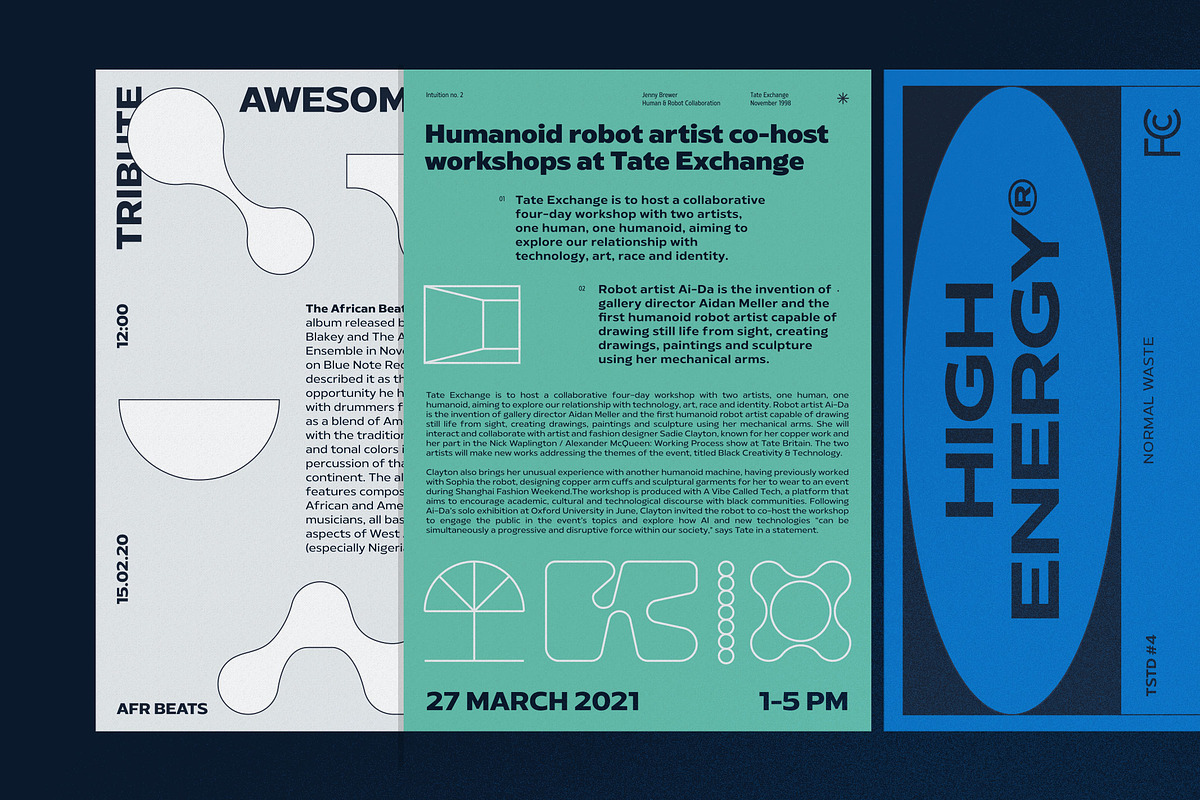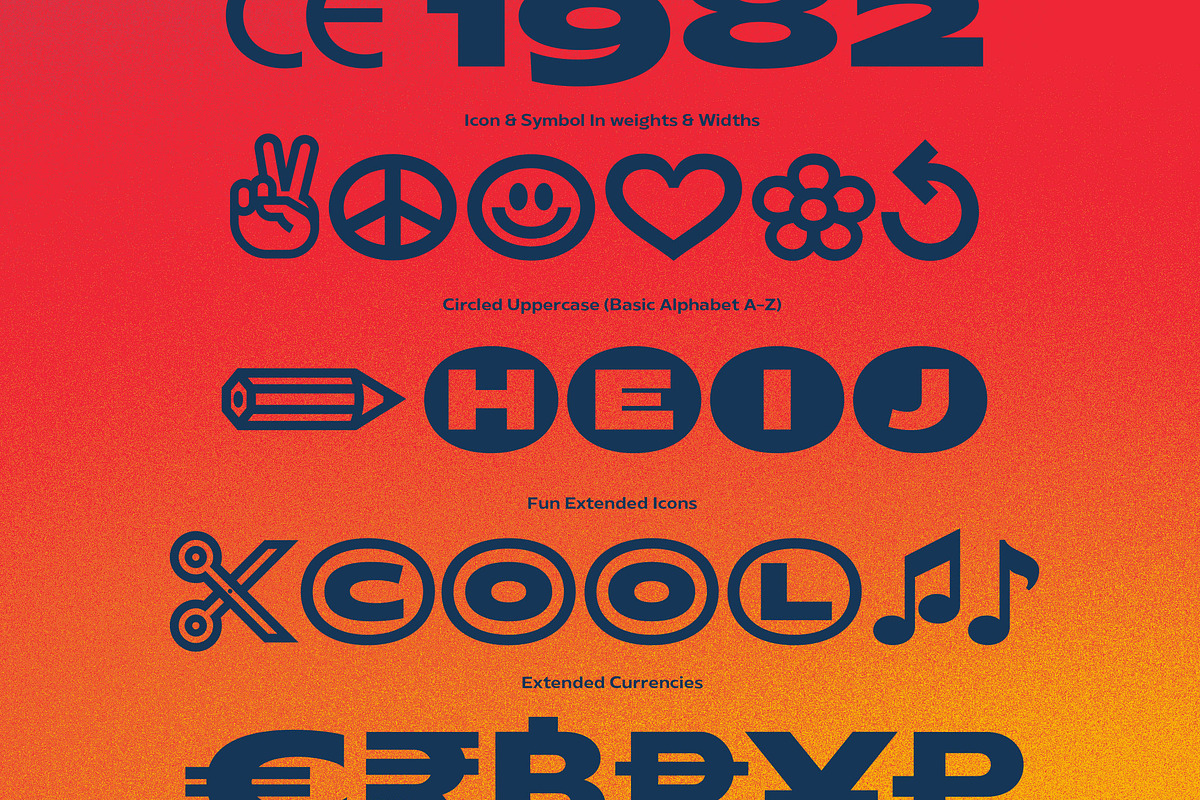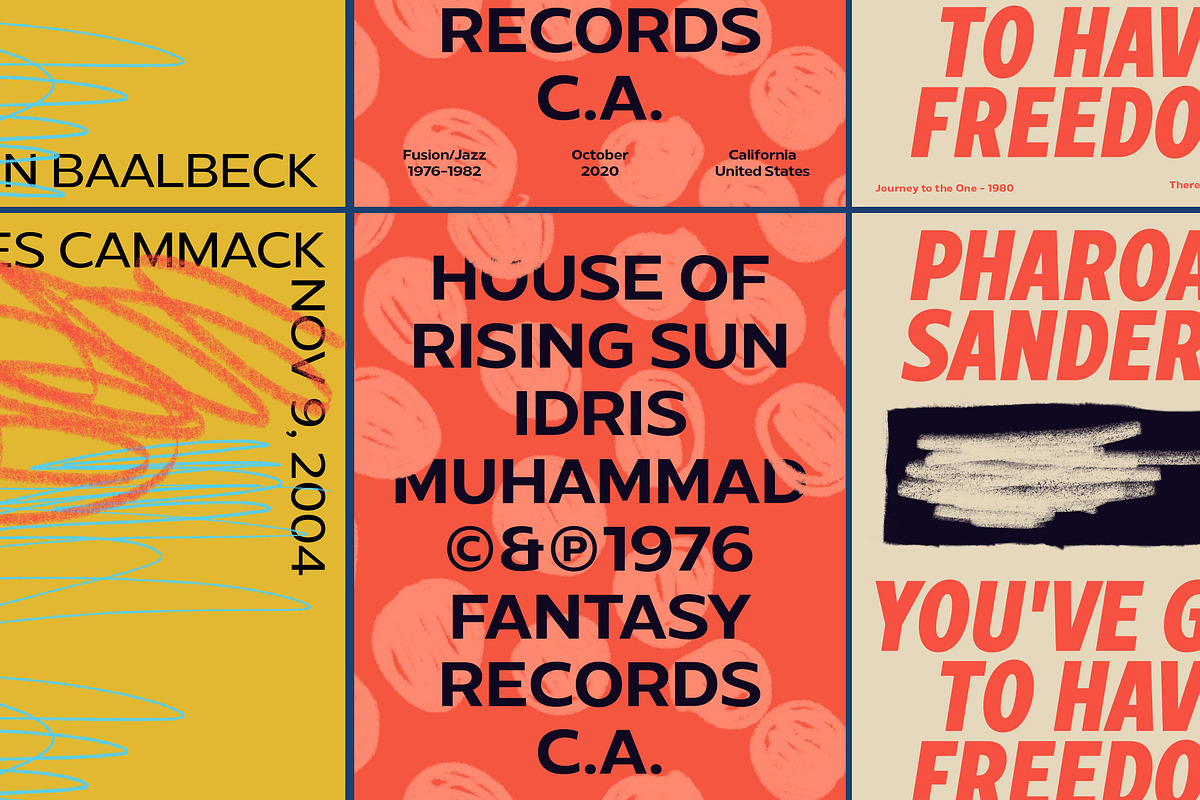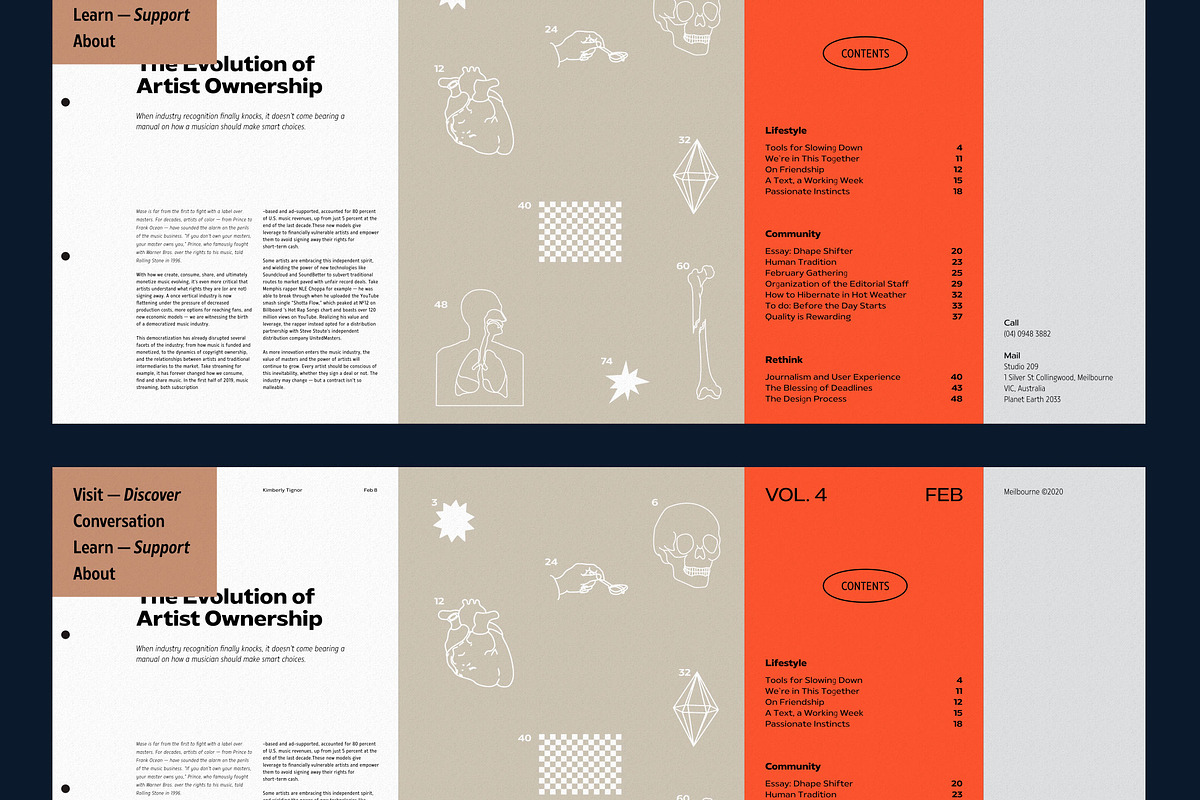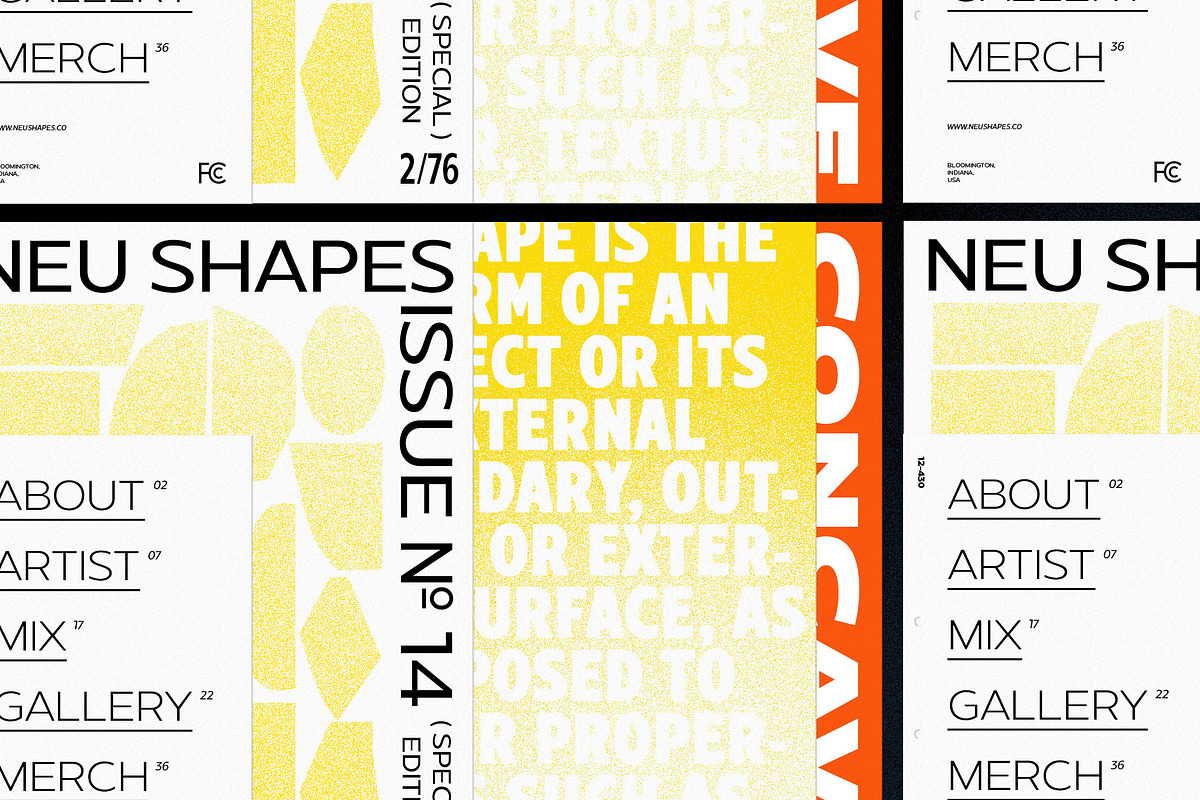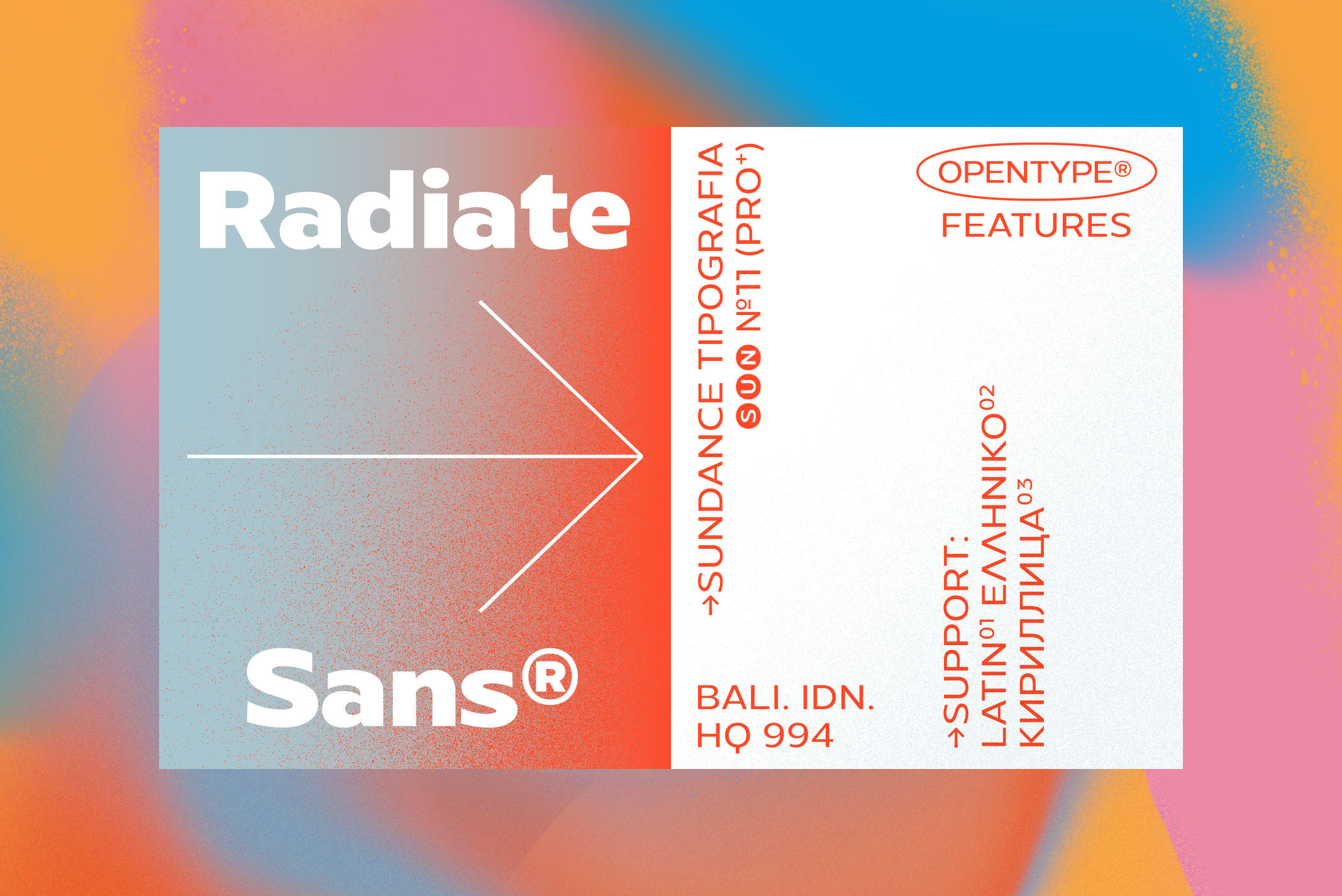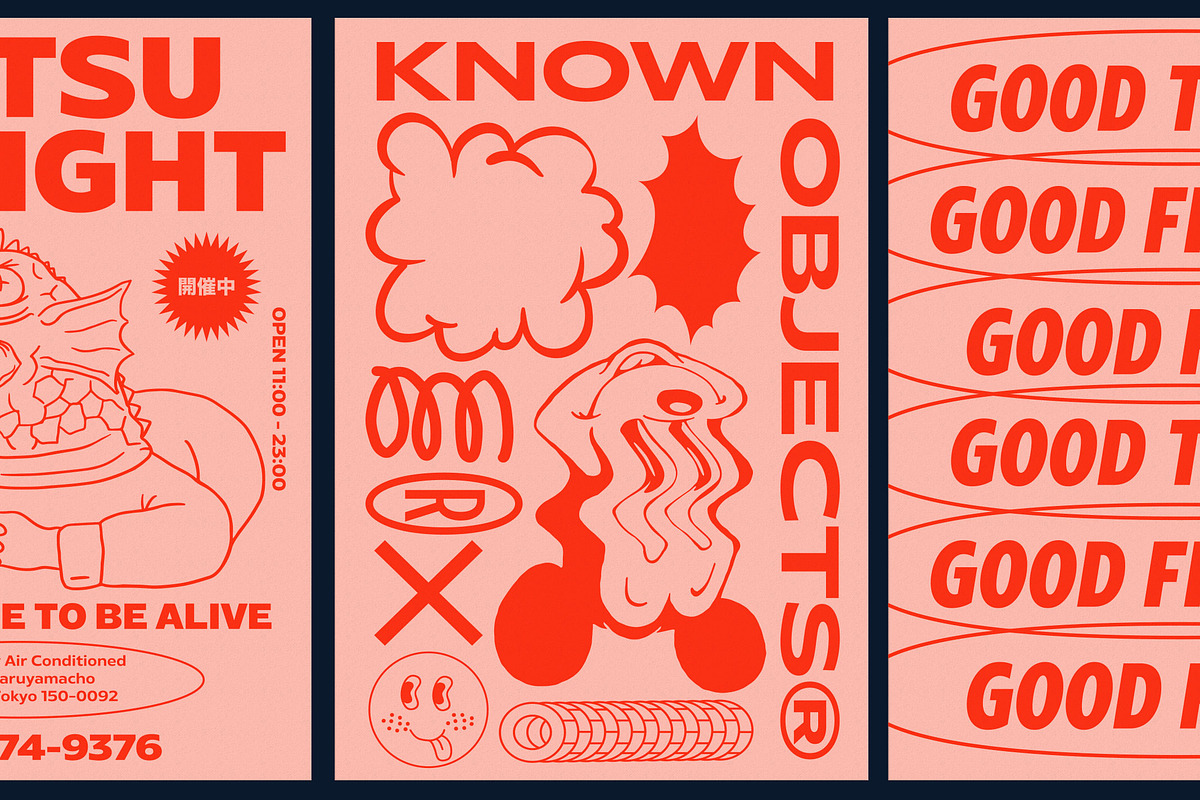
Radiate-Sans Font Family
Radiate Sans is a Humanist - Geometric Sans Serif fonts, Simple geometric letters shapes, medium contrast character style, It was designed lately 2018. and published on April 2020. Radiate Sans is a neutral typeface, have stroke modulation (strokes that clearly vary in width along their line) or alternating thick and thin strokes.
Radiate Sans intended as a display typeface that could be used for posters and advertisements, as well as for the text of documents that need to be clearly legible at small sizes or from a distance, such as book blurbs, timetables and price lists.
The family include 5 font weights, with a bonus 4 Widths in the OpenType version. It supports ISO Adobe 2, Adobe CE, Latin Extended characters, Standard Greek, and Standard Cyrillic. OpenType features include small caps, old style figures, superscript and subscript, ordinals, proportional lining figures, and case forms.